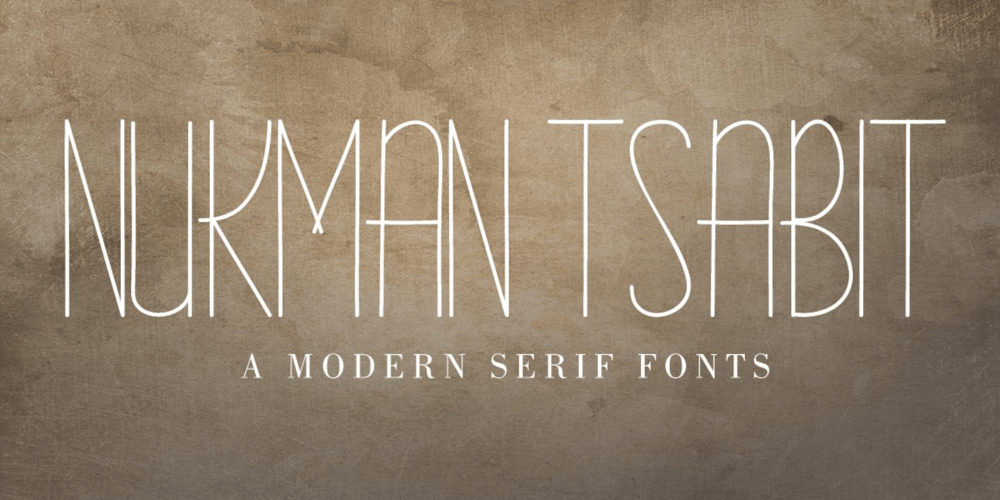
Nukman Tsabit Font Family was designed by Fajri Yandi and published by Doeltype. Nukman Tsabit contains 1 styles and family package options. Nukman Tsabit a modern serif.This “Nukman Tsabit” is well suited for various design projects, such as logos, advertising, quotes, packaging design and others.